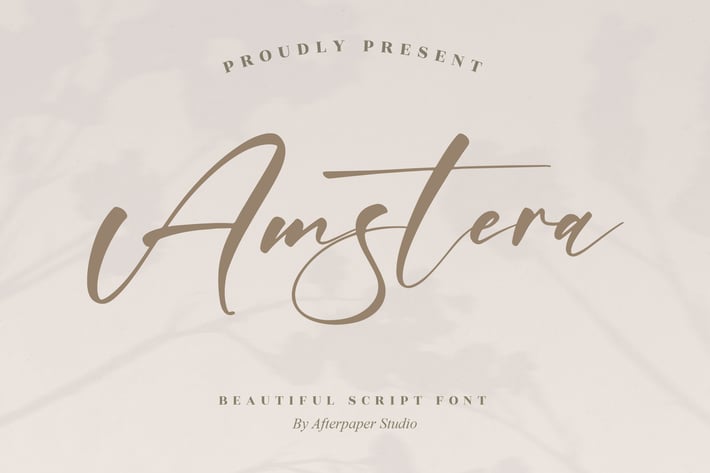
Amstera Script Font
Amstera Script Font is a beautiful handwritten typeface designed to bring elegance and sophistication to any design project. With smooth curves and modern calligraphic details, Amstera is perfect for branding, wedding invitations, social media posts, product packaging, and other creative works that need a personal and refined touch.
Elegant and modern script style
Suitable for both digital and print designs
Includes uppercase, lowercase, numbers, and punctuation
Works perfectly for branding, logo, stationery, and quotes
Ideal For:
Branding, logos, invitations, posters, cards, typography design, and promotional materials